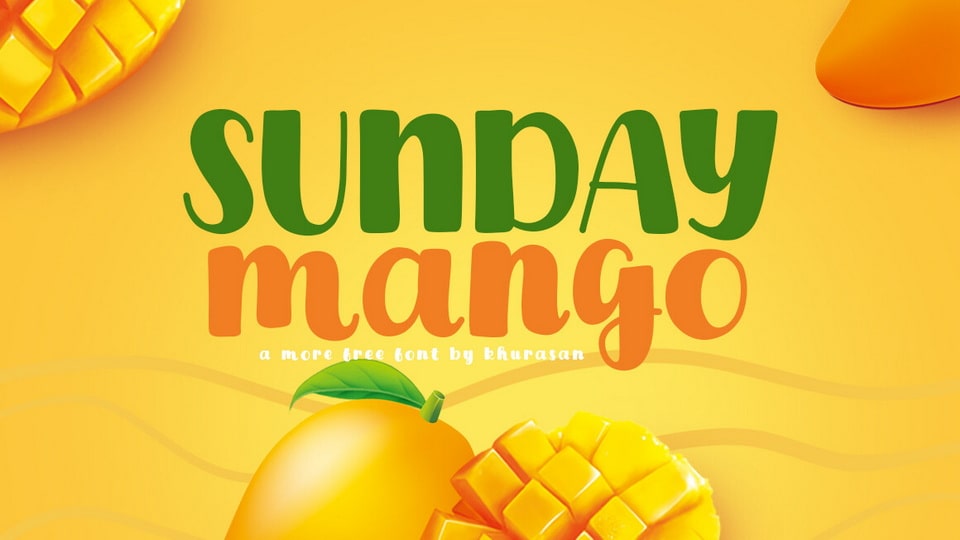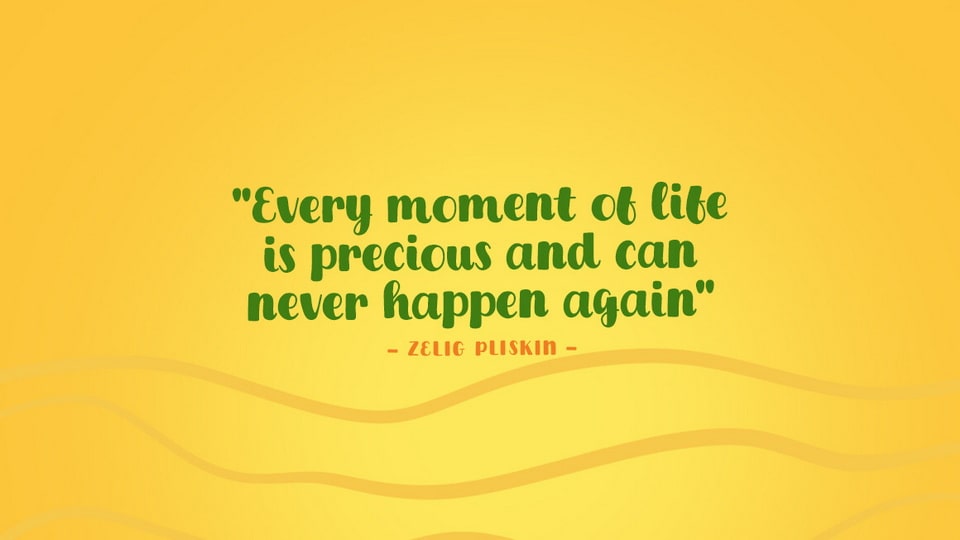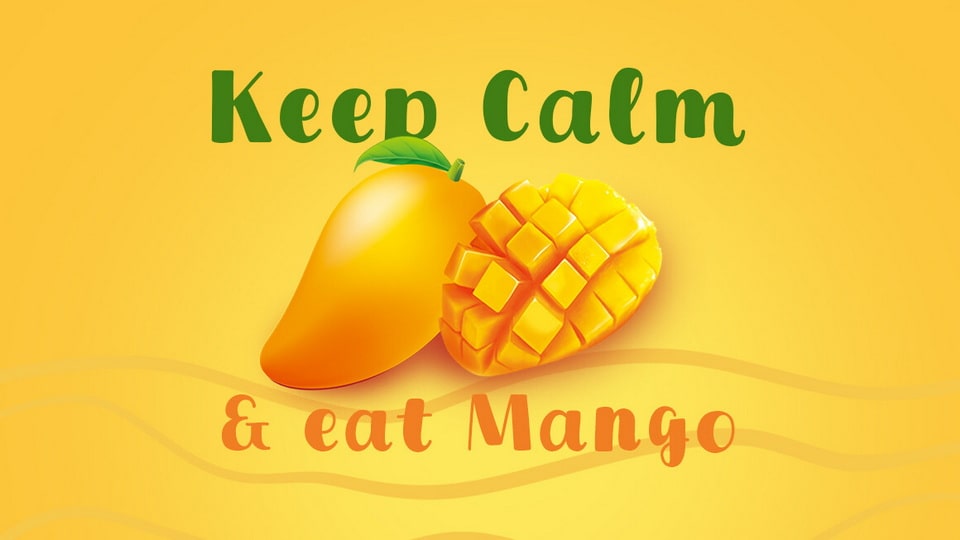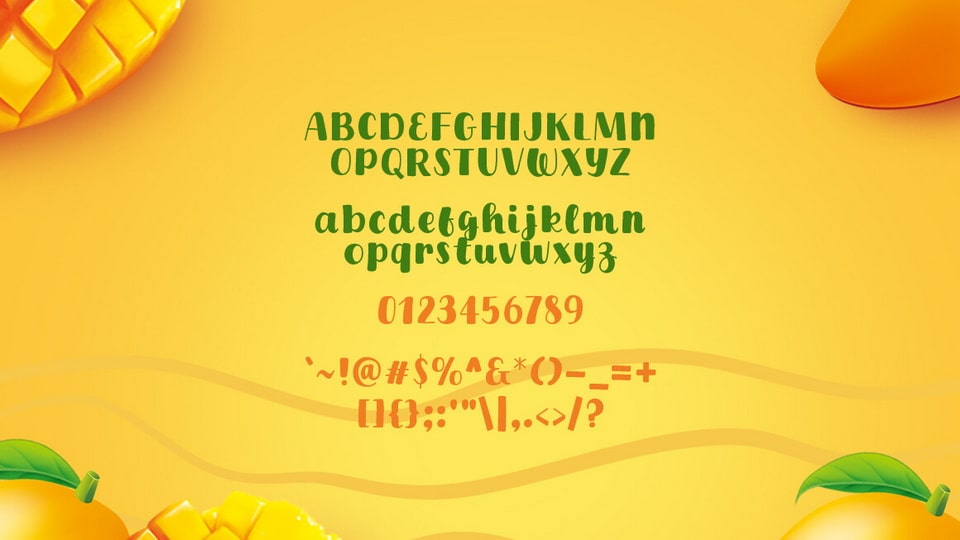
Sunday Mango Font
Sunday Mango is a playful and fancy hand drawn font. Every character dances with spontaneity, bringing an infectious sense of delight to your designs.
Sunday Mango is the font to infuse your projects with a dash of childlike wonder, and a sprinkle of carefree creativity. Whether you’re crafting birthday cards, playful posters, or cheerful branding, the font” is your go-to companion for heartfelt and spirited design.